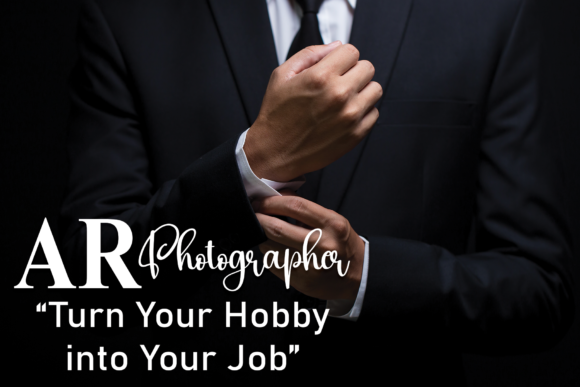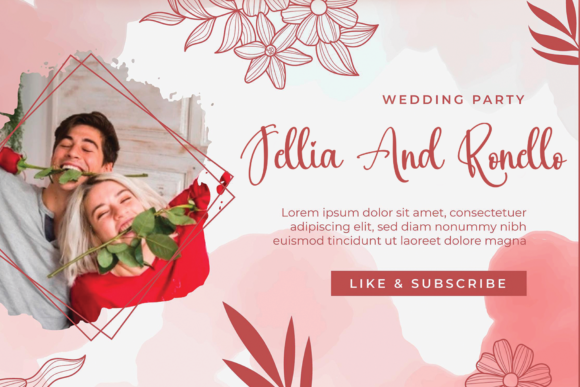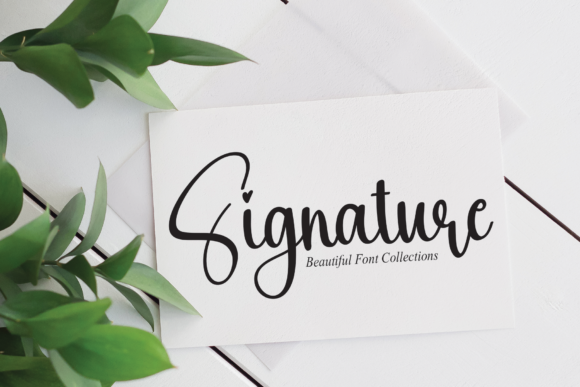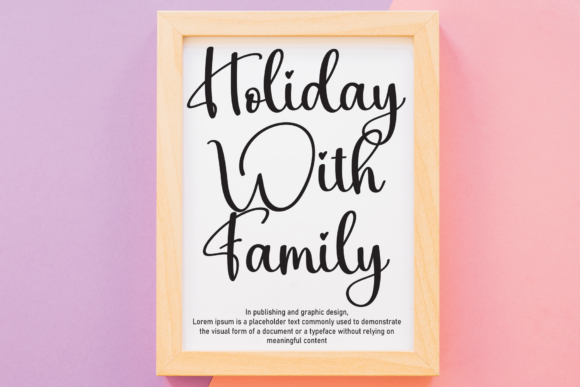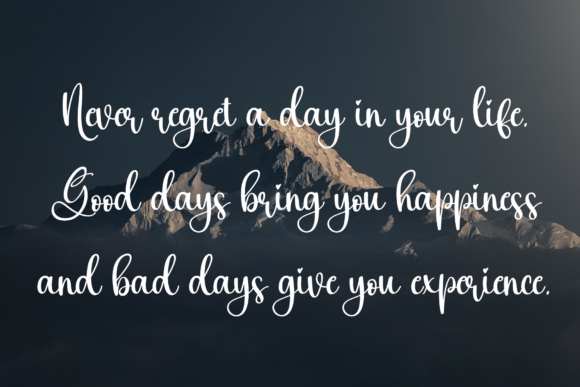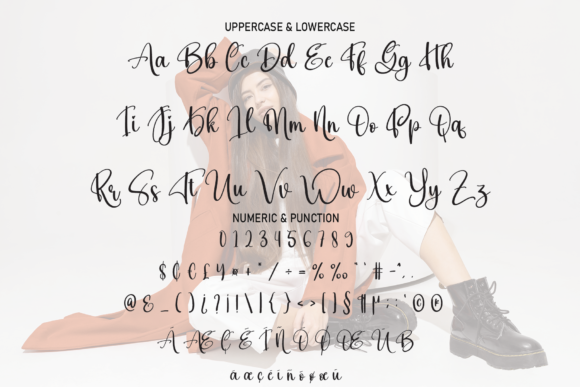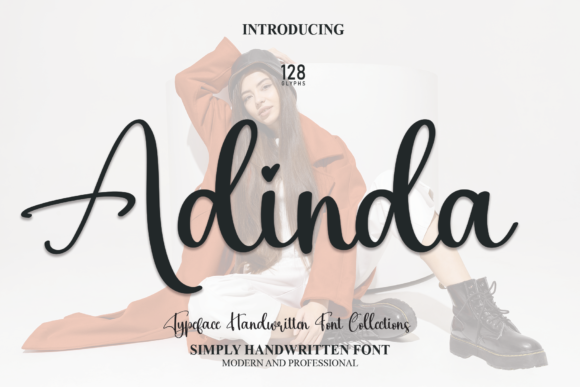
The Adinda Font: A Timeless Classic for Creative Projects
I’ll never forget the time I was working on a branding project for a new coffee shop. My client wanted a font that was both elegant and playful, but I was struggling to find the perfect fit. That’s when I stumbled upon the Adinda font, a beautiful handwritten script that instantly captured the essence of the brand. In this article, I’ll share my experience with Adinda, its features, and how to make the most of it in your creative projects.
An Honest Review of Adinda Font
As a designer, I’m always on the lookout for fonts that can elevate my projects. Here’s what I love about Adinda:
- ✨ Classic and simple handwritten script
- ✅ Suitable for a wide range of projects, from logotypes to posters
- 🌈 Beautifully crafted with a random and free style
- 💻 Highly versatile and easy to read
However, no font is perfect, and Adinda has a few quirks:
- ⚠️ Limited character set compared to some other fonts
- 🤔 May not be the best choice for very small text sizes
A Practical Guide to Using Adinda Font
- Explore OpenType features, glyphs, and stylistic alternates to add more personality to your text
One of the best features of Adinda is its support for OpenType features. This means you can access a range of alternative characters, ligatures, and stylistic sets to add more flair to your text. For example, you can use the stylistic alternates feature to create a more playful look or the glyphs feature to add special characters.
The Story Behind Adinda Font
Adinda was created by a talented font designer who wanted to craft a timeless, classic script font. Inspired by traditional handwriting and calligraphy, Adinda is the result of hours of careful craftsmanship and attention to detail. Although we don’t know much about the designer’s background, it’s clear that their passion for typography shines through in Adinda.
| What type of projects is Adinda suitable for? | Adinda is a versatile font that can be used for a wide range of projects, including logotypes, headlines, posters, magazines, and more. |
| Does Adinda support OpenType features? | Yes, Adinda supports OpenType features, including stylistic alternates, glyphs, and ligatures. |